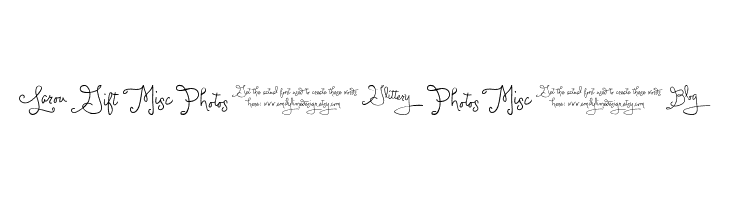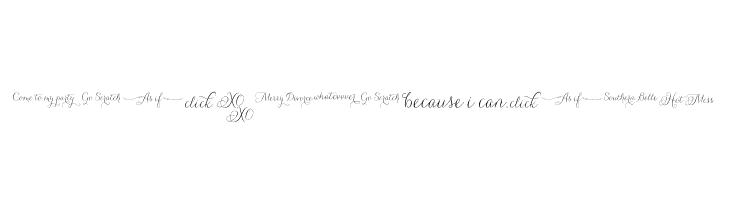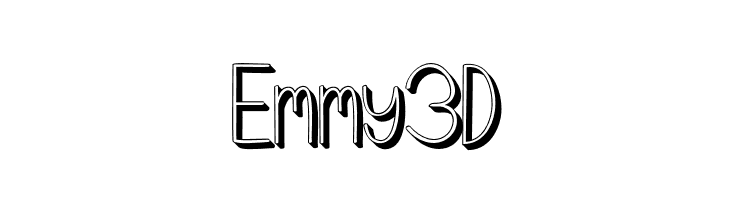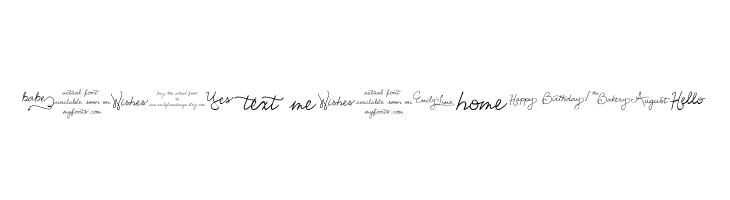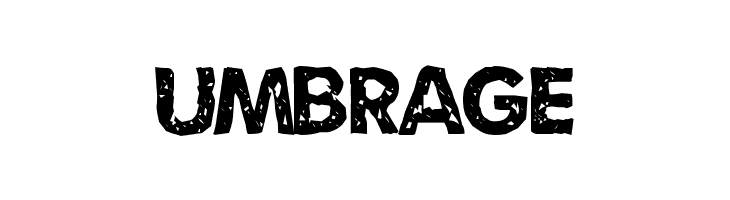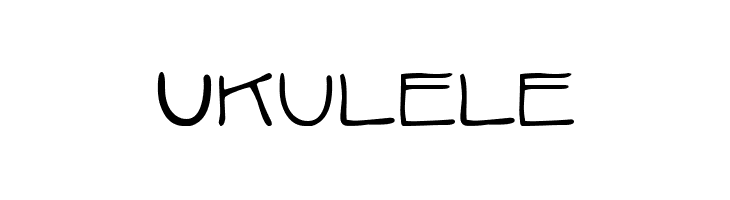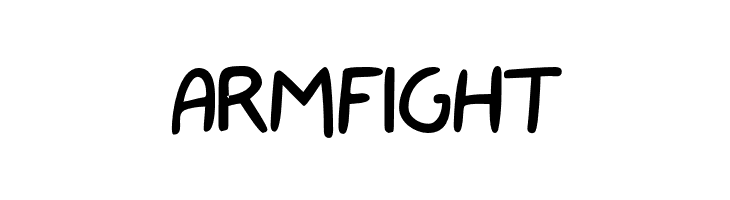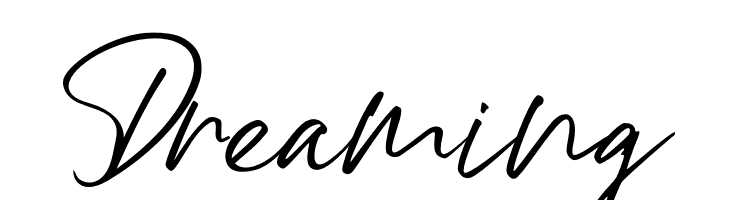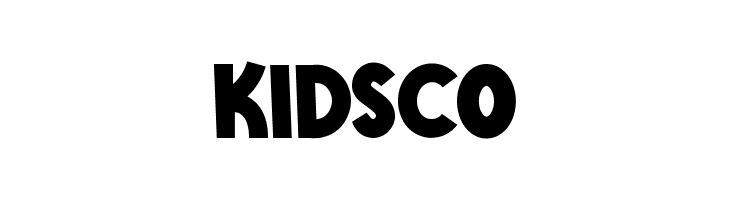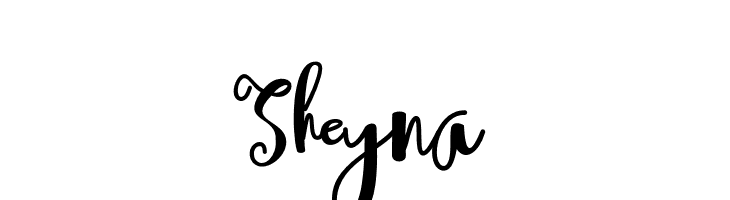
A playful and whimsical script font with flowing, cursive letters.
A bold, playful script font with a whimsical and elegant style.
An elegant, flowing script font with intricate loops and flourishes.
An elegant, flowing script font with calligraphic influences and ornate flourishes.
A playful 3D font with bold outlines and a whimsical style.
A whimsical and elegant script font with flowing, cursive letters and decorative flourishes.
A fluid, cursive handwritten font with an elegant and personal touch.
A bold, distressed font with a rugged, vintage look.
A playful, handwritten font with smooth, rounded strokes and a casual style.
A bold, playful font with rounded strokes and a whimsical touch.